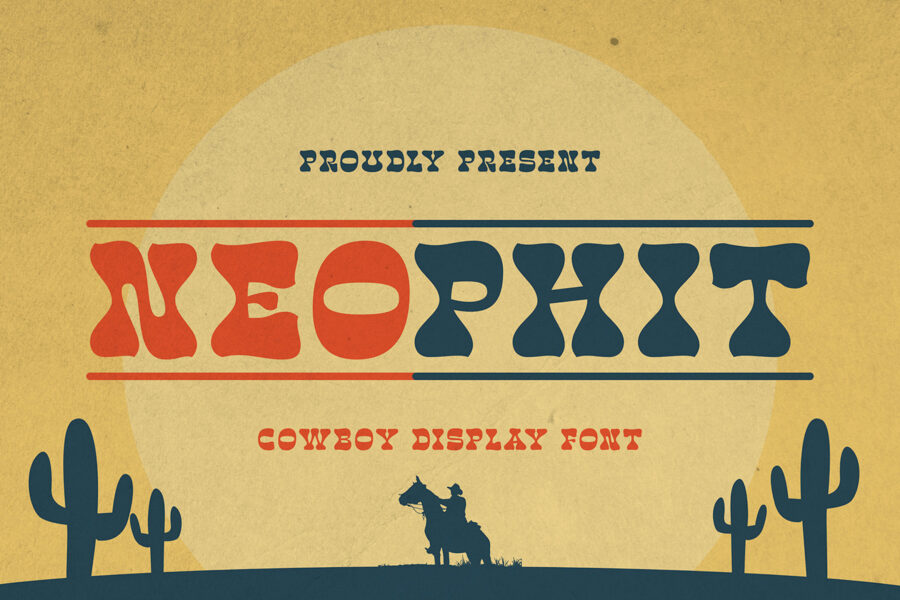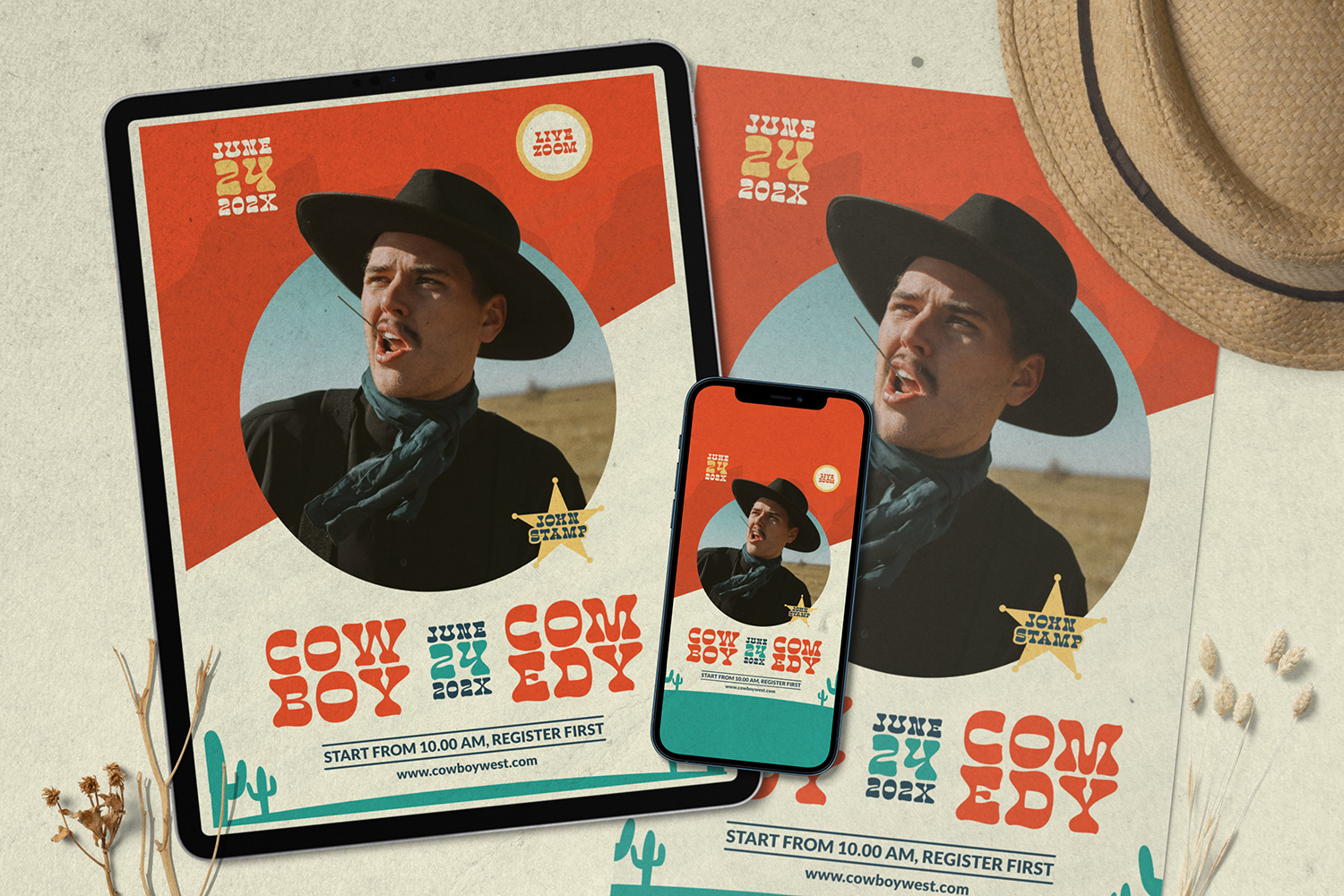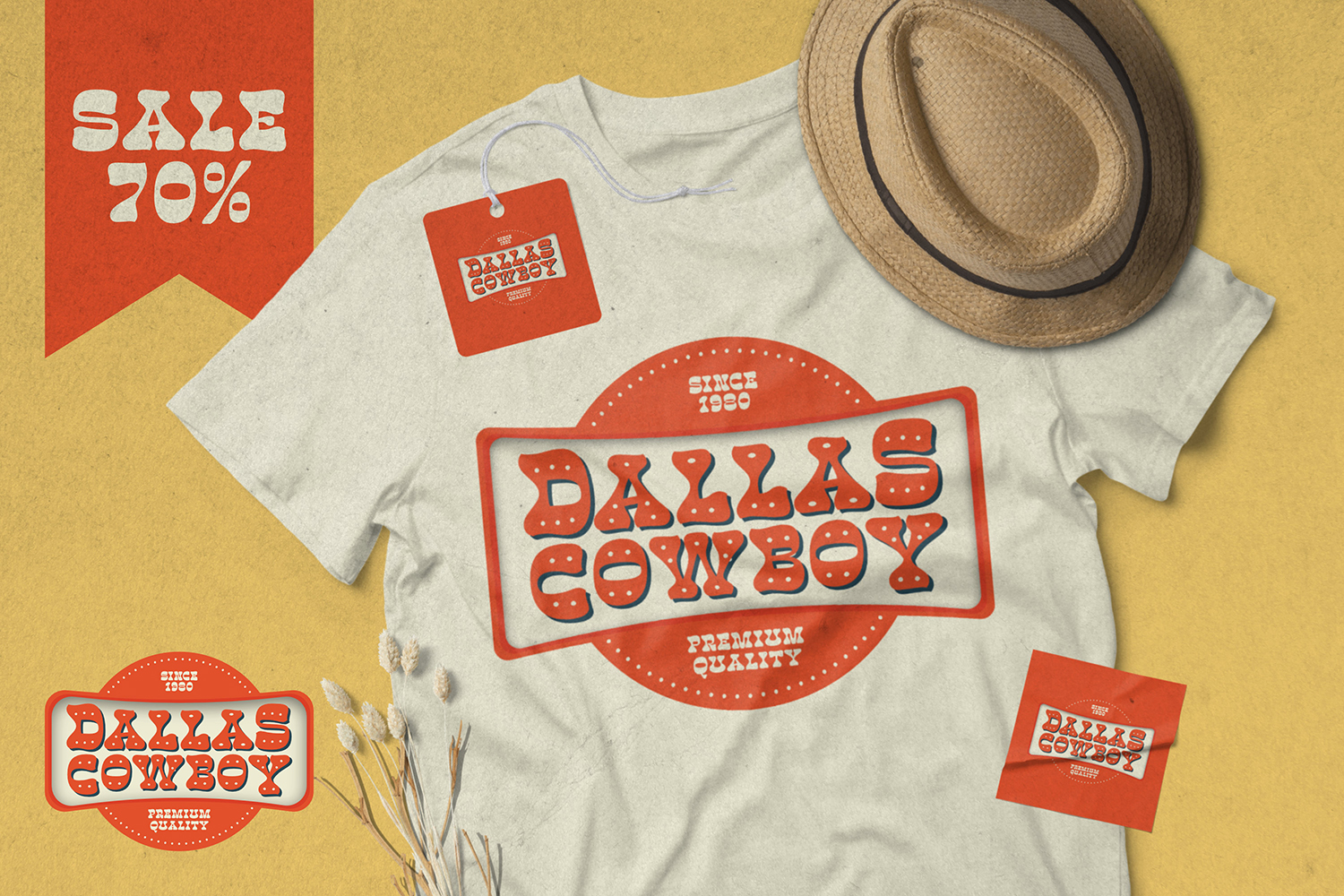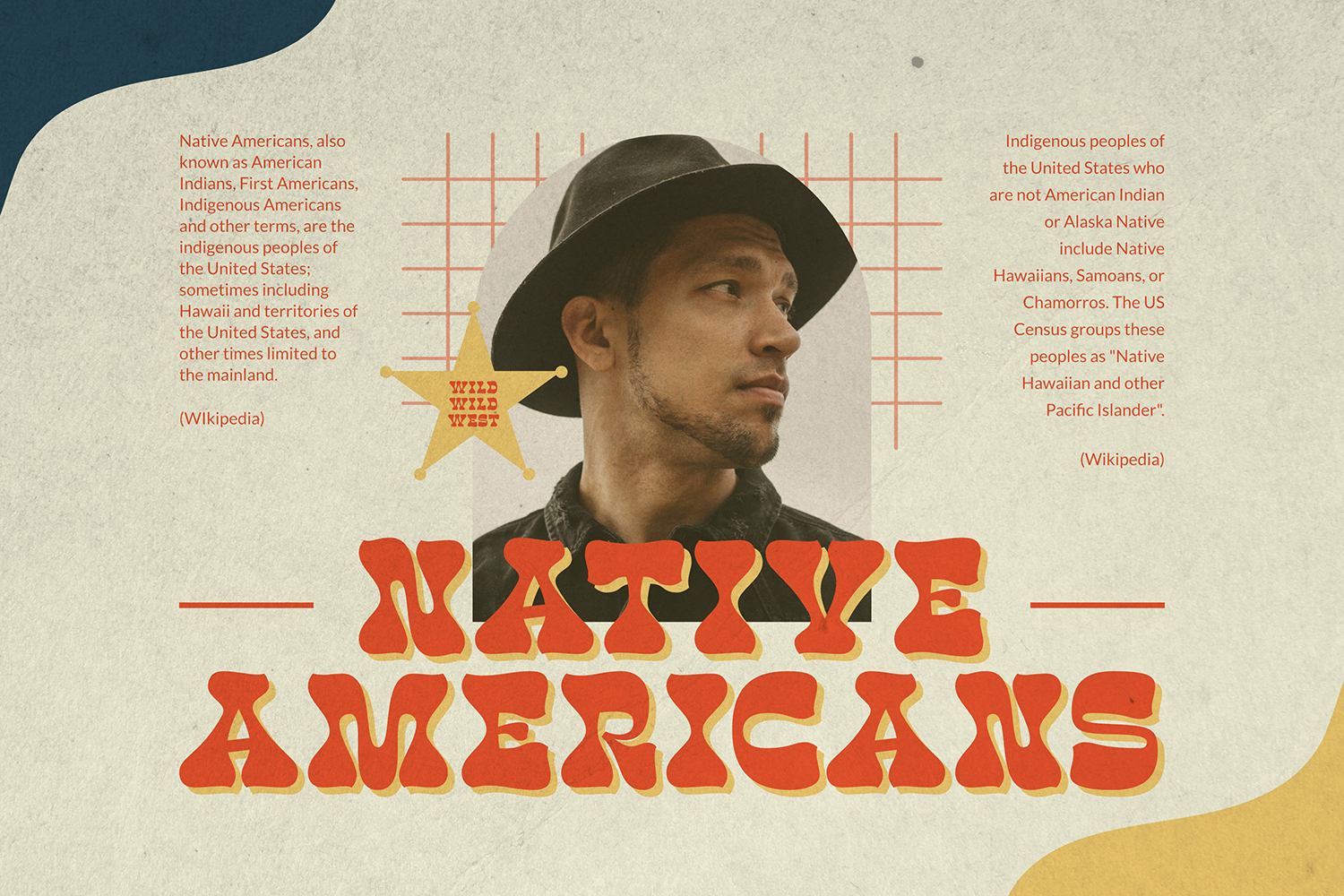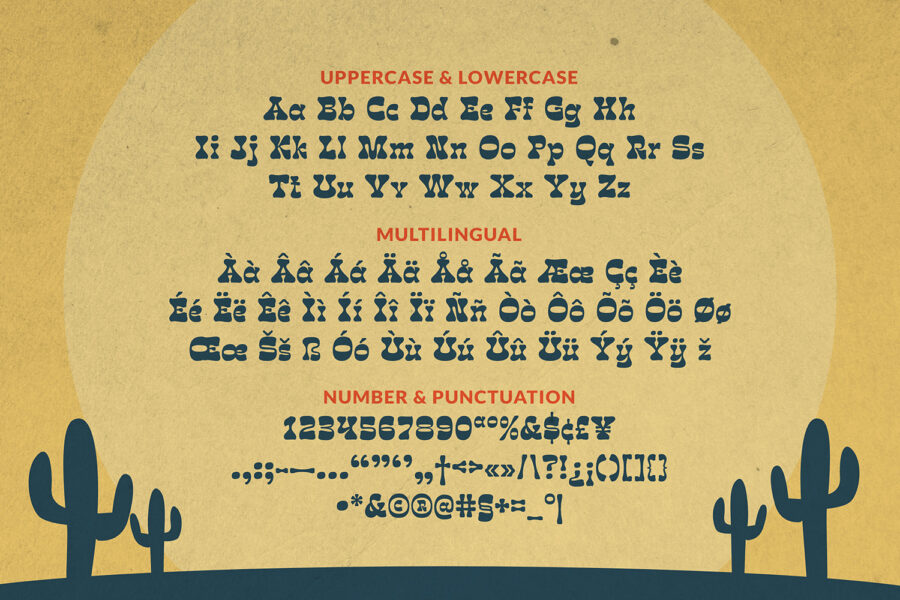
Neophit is a bold cowboy display font inspired by the rugged charm of the Wild West. With its playful yet strong letterforms, this font captures the adventurous spirit of vintage saloons, rodeo posters, and western landscapes. Its wavy shapes and retro aesthetics make it perfect for designs that need a touch of western nostalgia with a fun and eye-catching twist.
Equipped with uppercase, lowercase, numbers, punctuation, and multilingual support, Neophit is versatile for various creative uses. Ideal for posters, apparel, event promotions, branding, and packaging, this font brings a classic cowboy vibe that feels authentic yet stylish in modern contexts.
Neophit